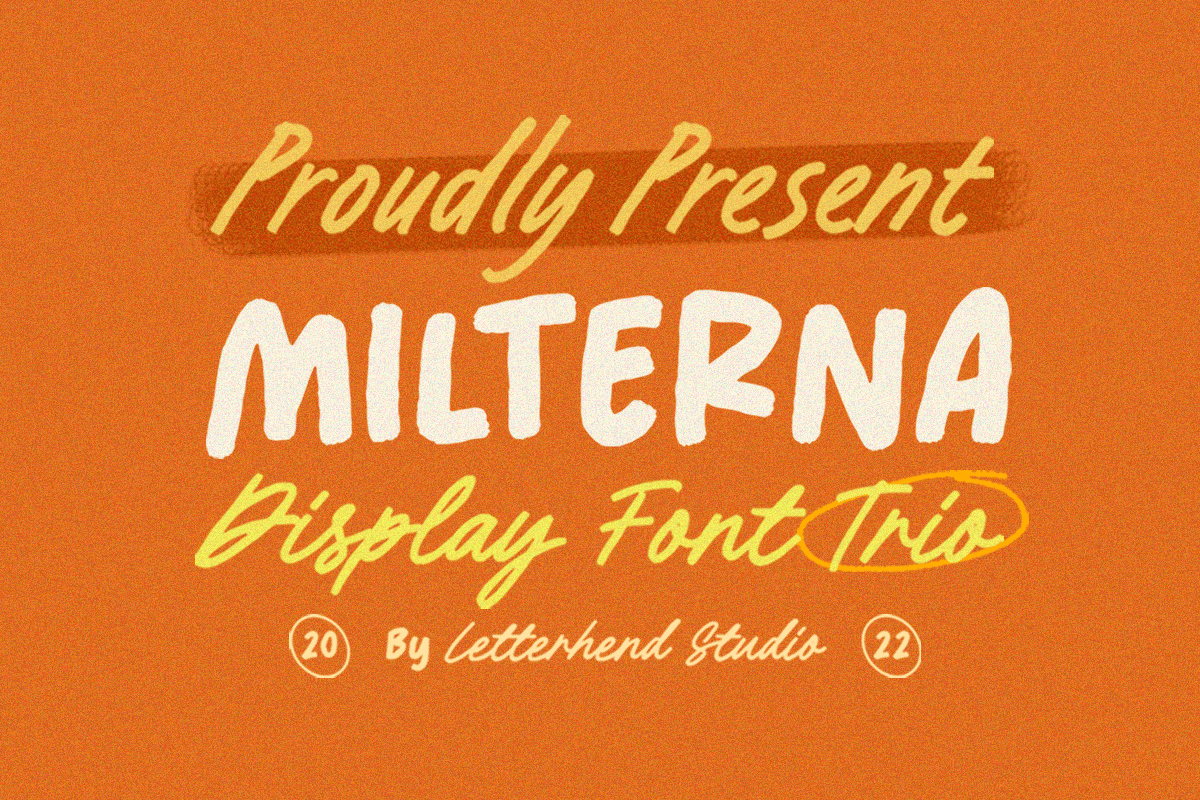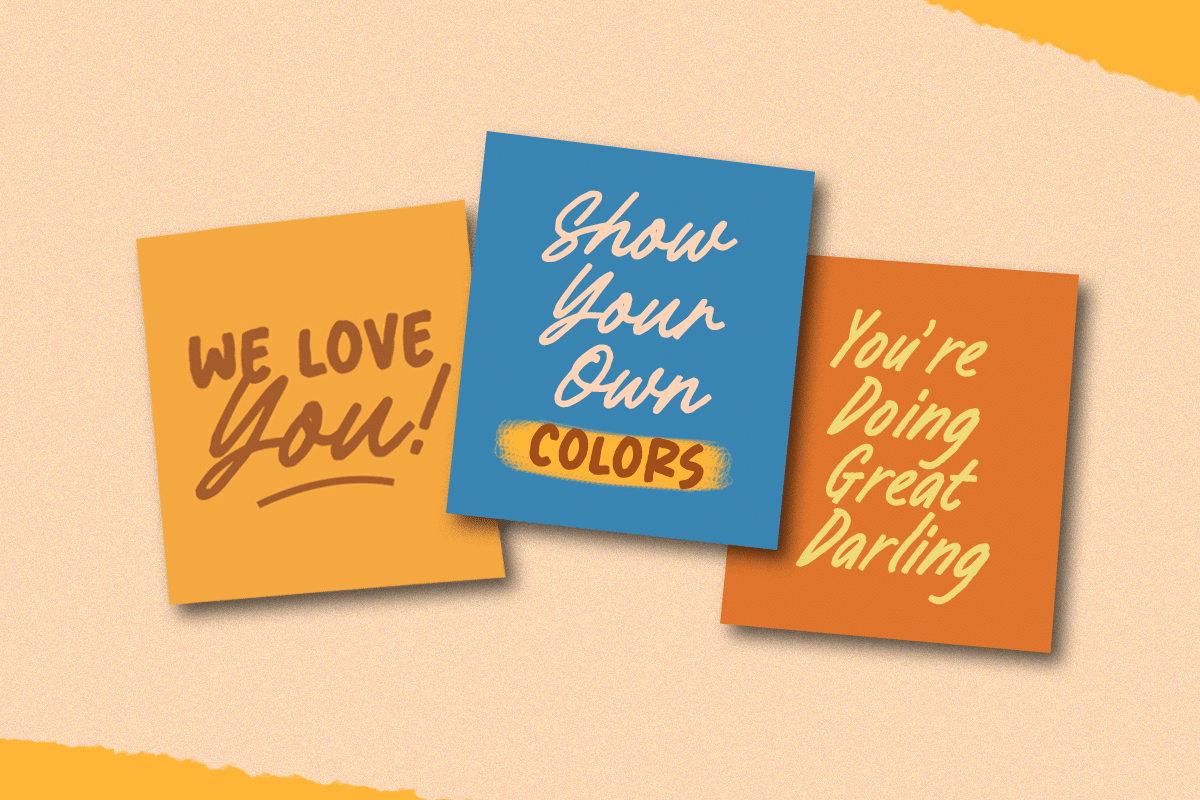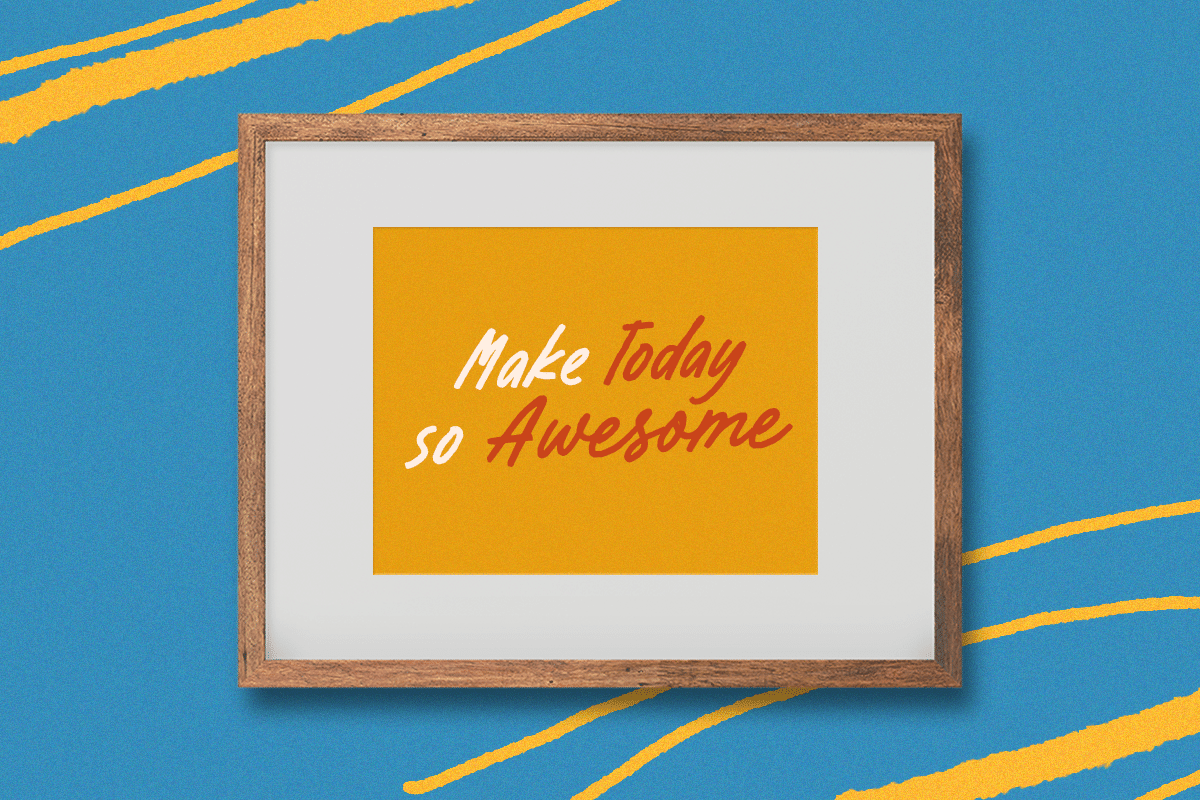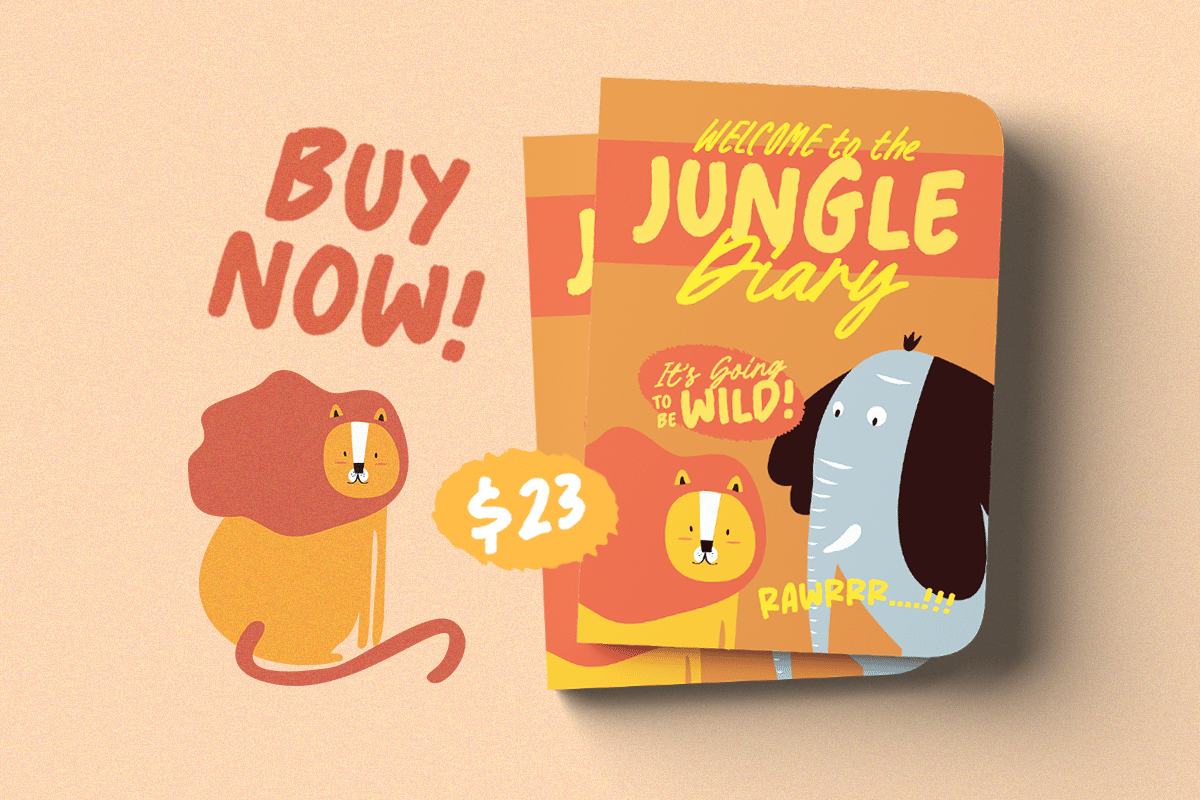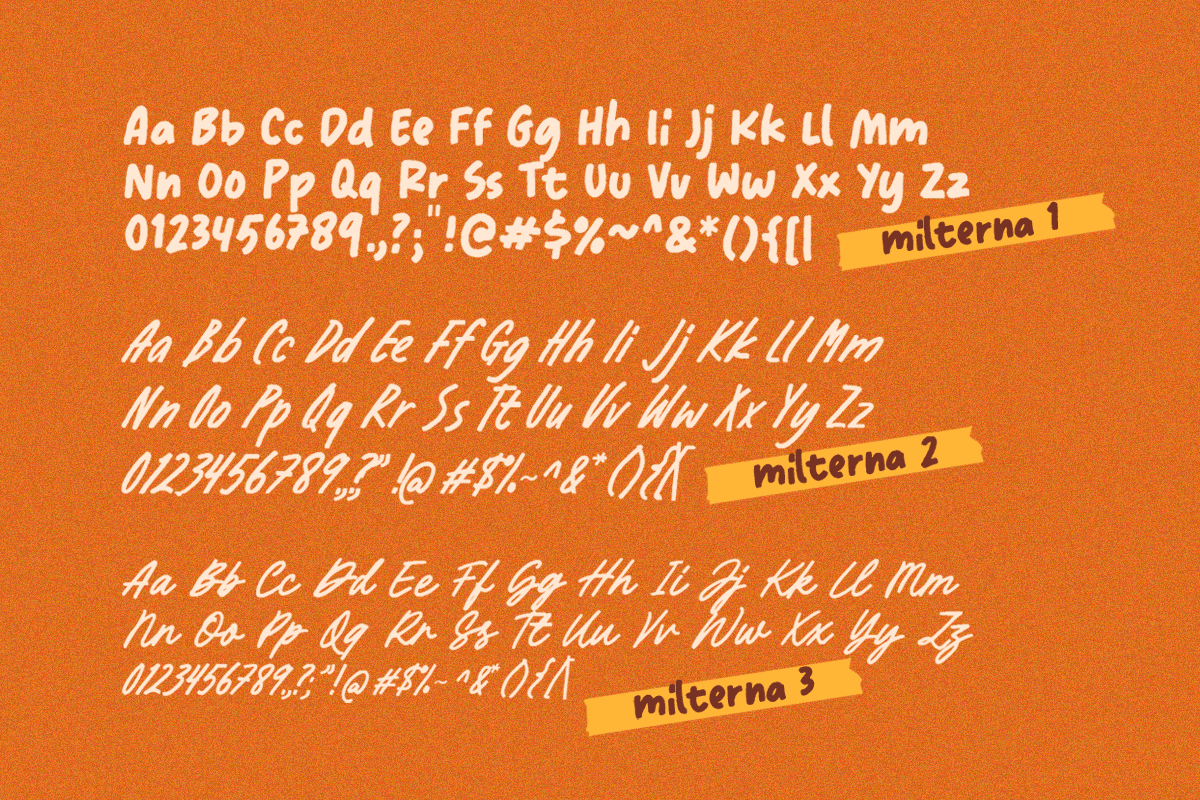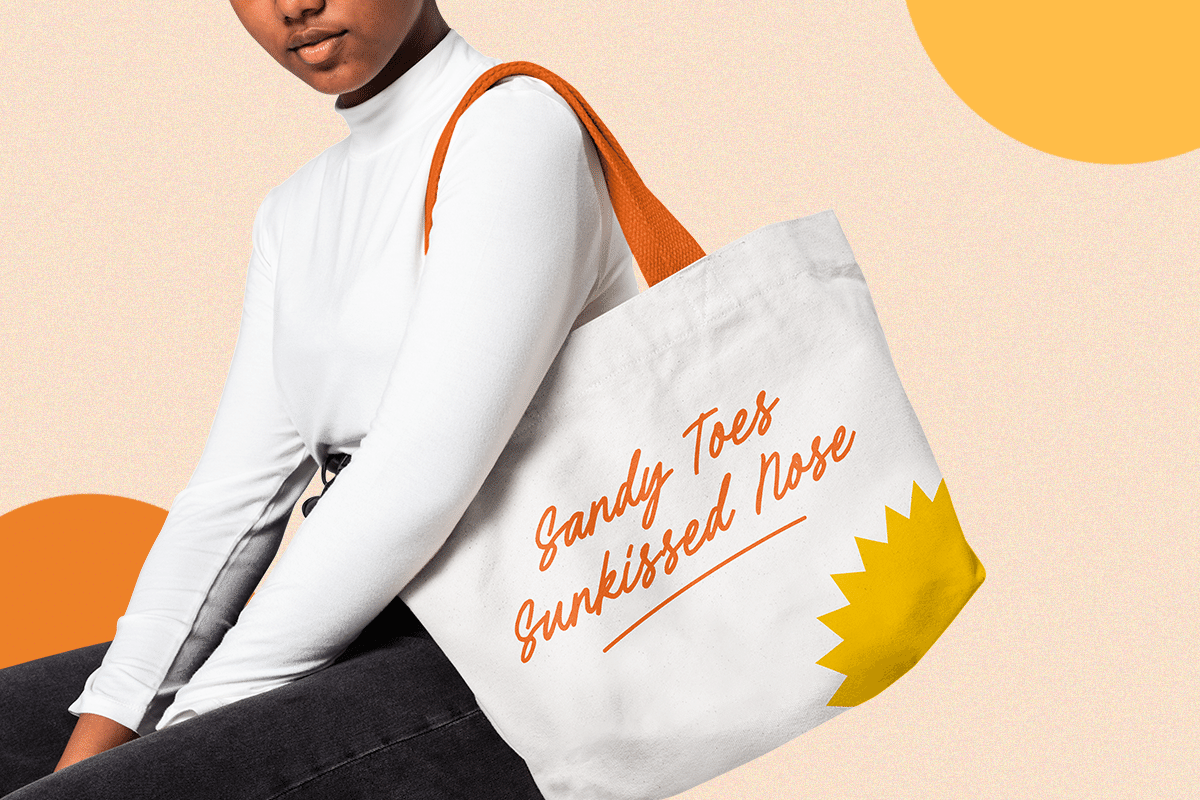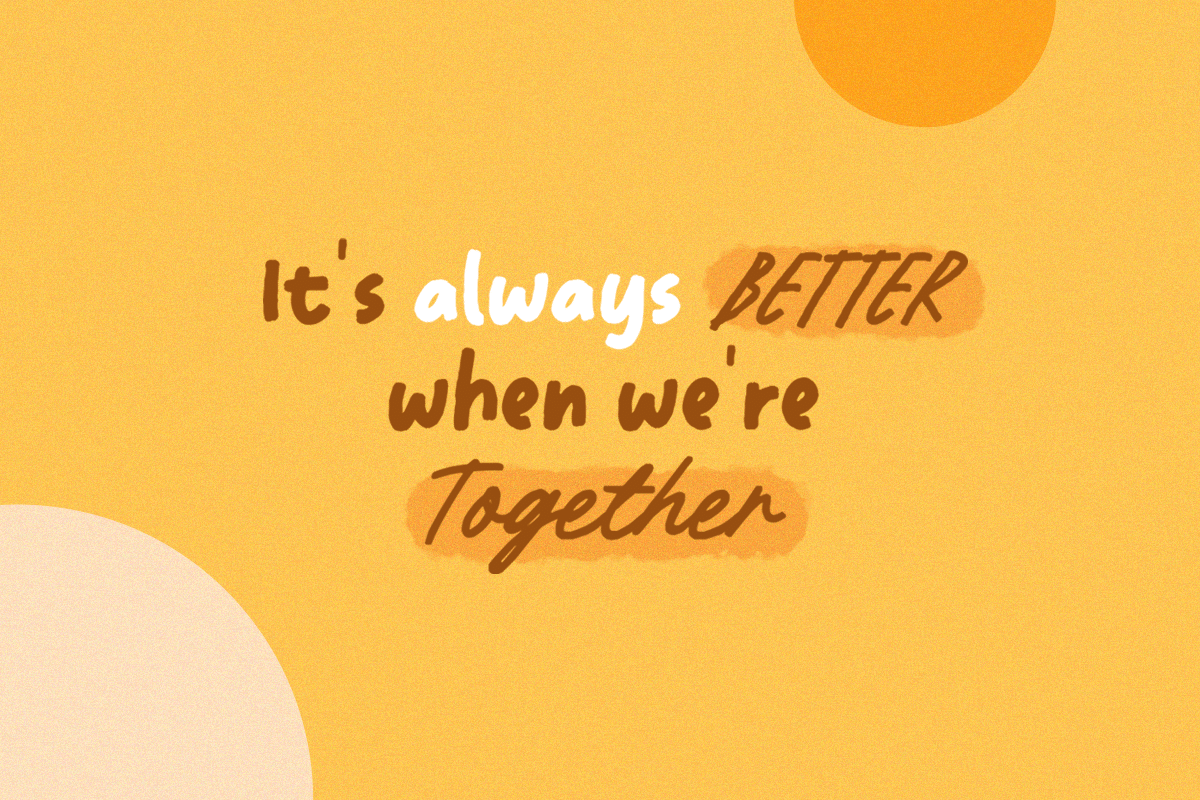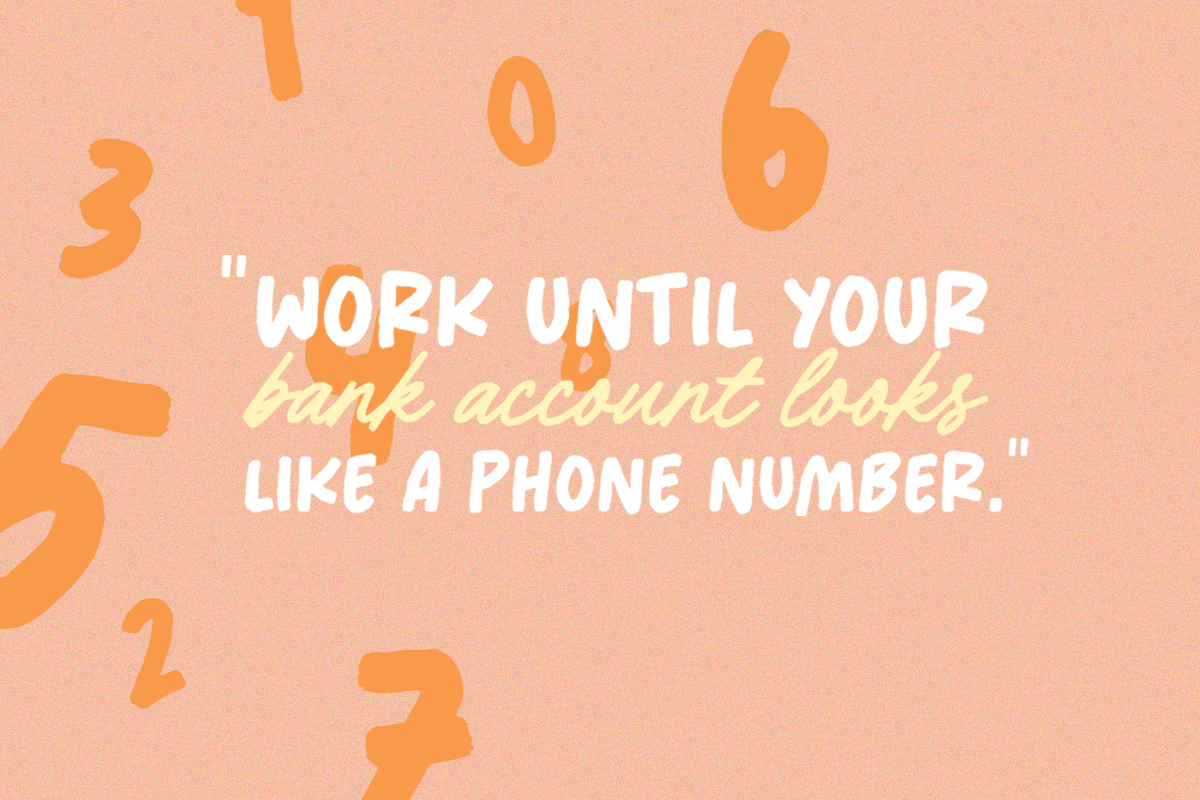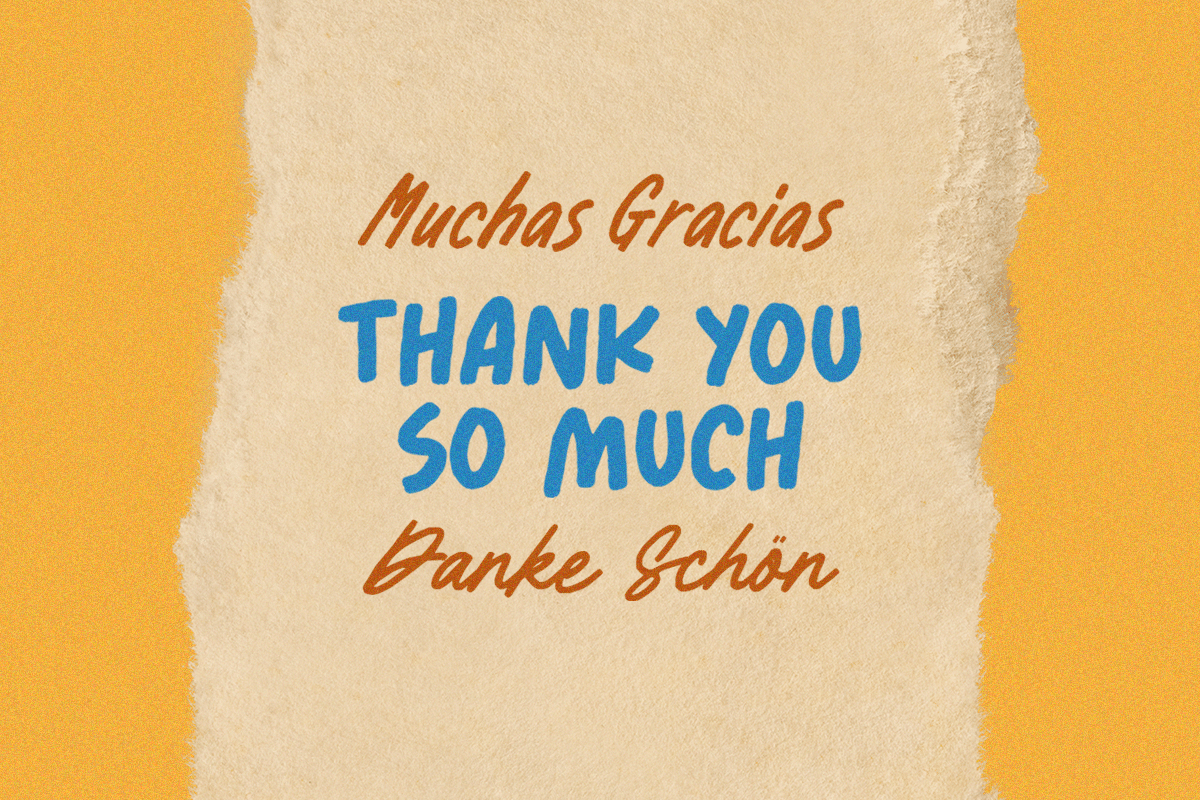
Milterna - Display Font Trio
Milterna is a playful typeface based on manual hand writing. It comes with 3 style. It worked well to combine these three fonts into one lettering. This type of font perfectly made to be applied especially in logo, and the other various formal forms such as invitations, labels, logos, magazines, books, greeting / wedding cards, packaging, fashion, make up, stationery, novels, labels or any type of advertising purpose.